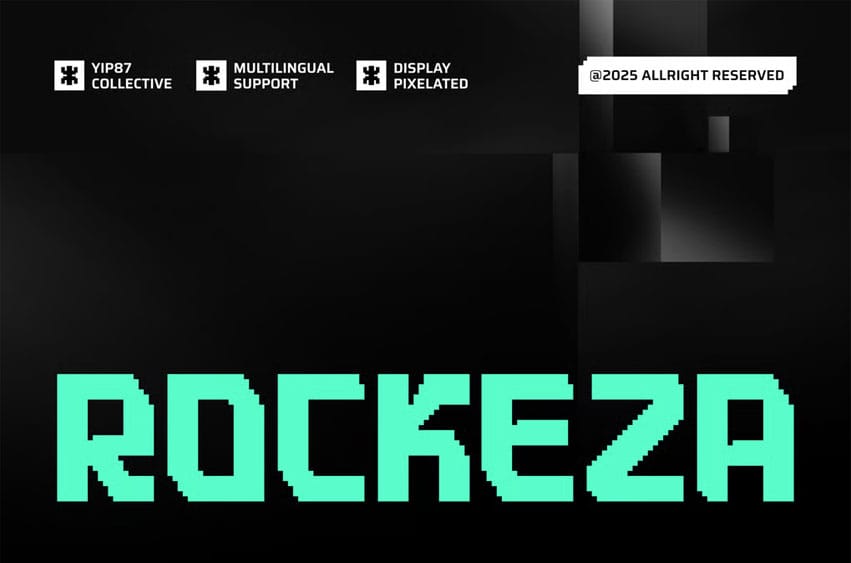
Rockeza Pixel Font is a retro pixel font style, perfect for retro game design theme, Also suitable for movie, documenter, film, logo, poster, game, book cover, headlines, title and many more projects.